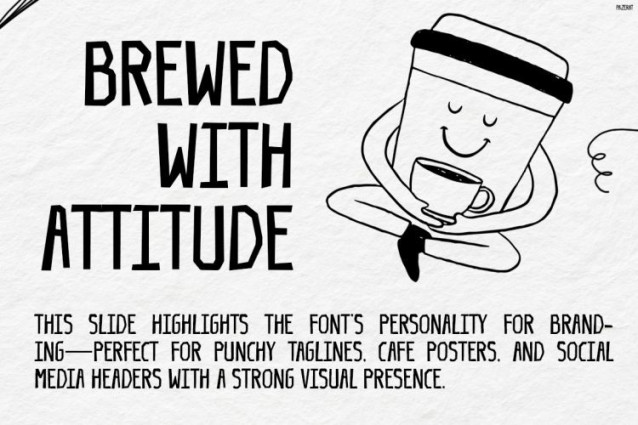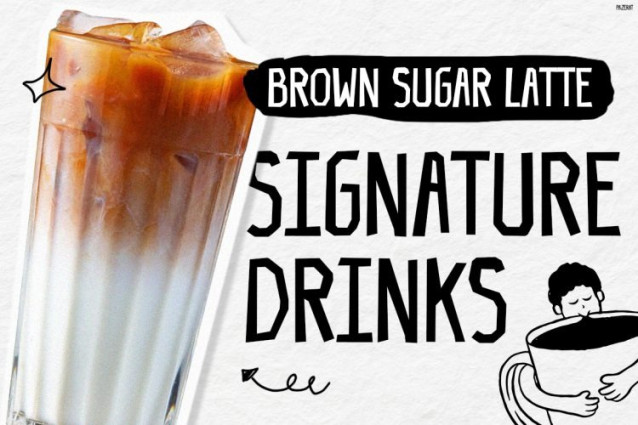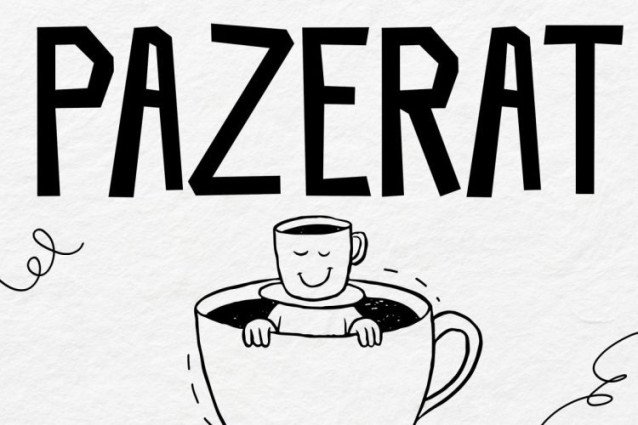
Pazerat Font
Pazerat Font is a bold handwritten display font inspired by cozy coffee shops, café culture, and playful handcrafted typography. Designed with tall letterforms, sketchy details, and raw handwritten energy, this font instantly creates a warm and eye-catching visual atmosphere. Moreover, Pazerat combines modern café aesthetics with quirky artistic charm, making every design feel authentic, creative, and full of personality. Unlike ordinary handwritten fonts, Pazerat delivers a unique balance between playful expression and strong readability. As a result, this font works perfectly for branding, menus, posters, packaging, and social media content. In addition, the imperfect hand-drawn texture gives designs a more natural and human feel, which helps visuals look more engaging and memorable. Therefore, Pazerat becomes an excellent choice for projects that want cozy vibes mixed with bold creative energy.
Why Kids Font Pazerat Stands Out
Kids Font Pazerat brings together handcrafted typography and modern coffeehouse aesthetics in one powerful typeface. Furthermore, the tall handwritten letterforms help headlines look bold, artistic, and highly noticeable. Thanks to its playful sketch-inspired appearance, this font creates a friendly and relaxed atmosphere while still maintaining a trendy visual style. At the same time, the clean structure keeps every word readable across both digital and print designs. Besides that, Pazerat includes uppercase, lowercase, numbers, and punctuation, so designers can create flexible and expressive typography compositions effortlessly. Consequently, this font works beautifully for café branding, bakery promotions, menu boards, lifestyle packaging, and creative merchandise.
Perfect For Who?
Kids Font Pazerat is ideal for graphic designers, café owners, baristas, content creators, small businesses, and creative entrepreneurs who want typography filled with warmth and personality.